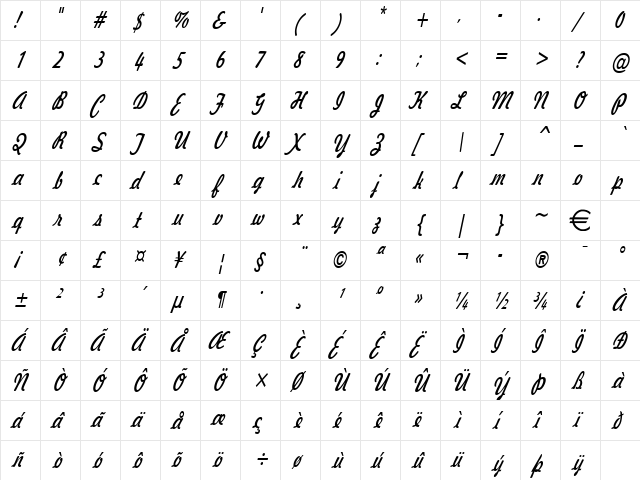
JotsThin Italic Font Preview
Design Context for JotsThin Typeface
JotsThin takes a measured approach to typography — its balanced proportions and neutral character make it a reliable workhorse for both digital and print work. The dynamic lean of this cut emphasises speed and emphasis in any layout. The delicate stroke weight brings airiness and refinement to layouts.
Pro Tip: Try JotsThin for annotation and caption copy alongside an upright companion — the contrast in angle creates a dynamic but ordered typographic system.